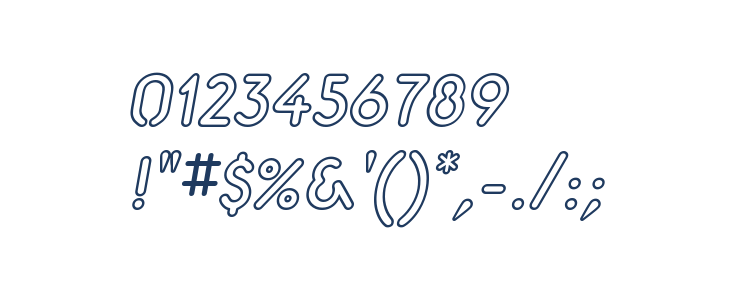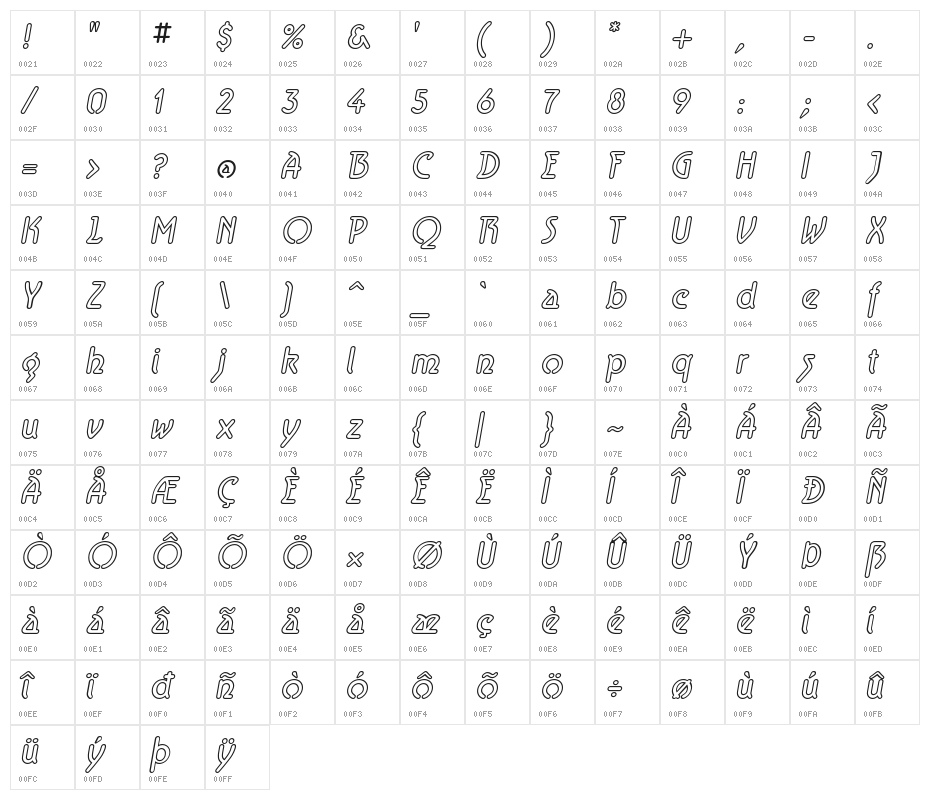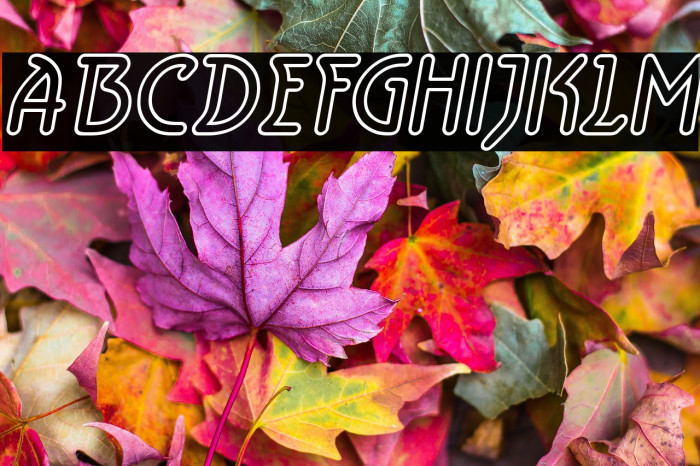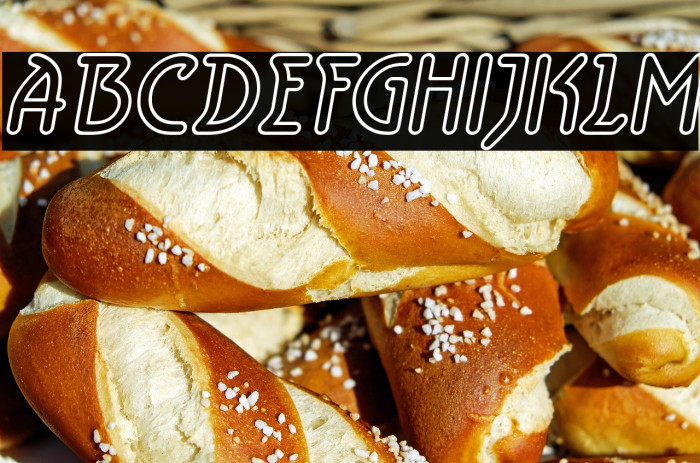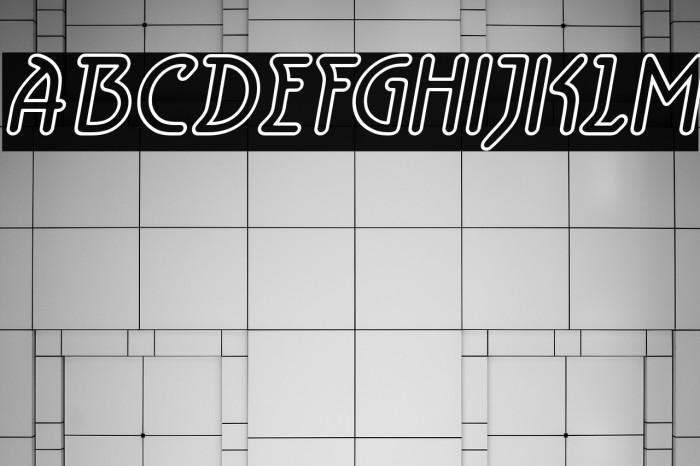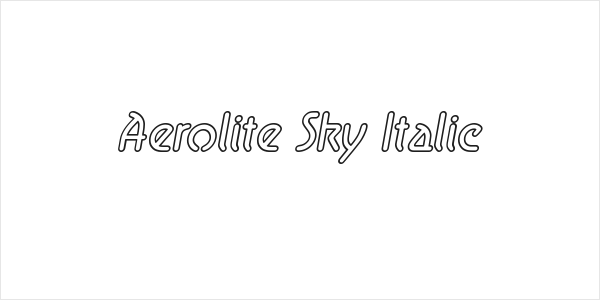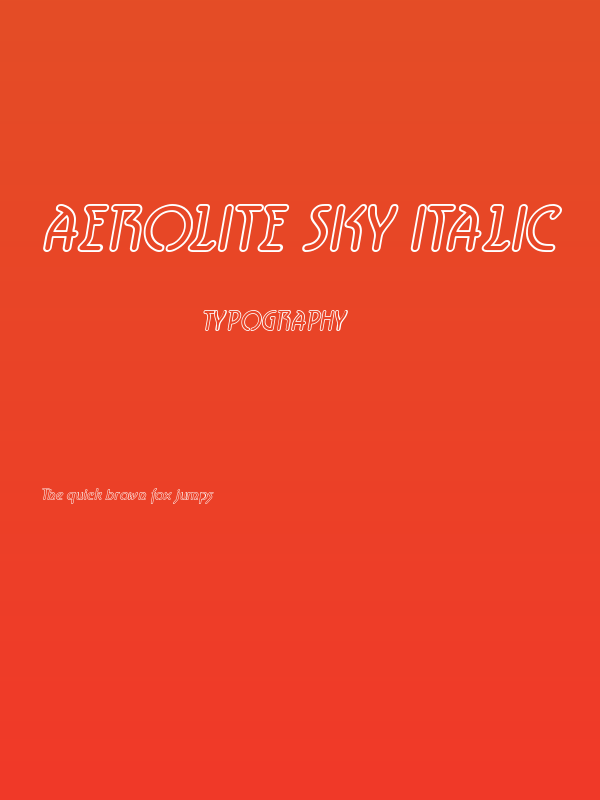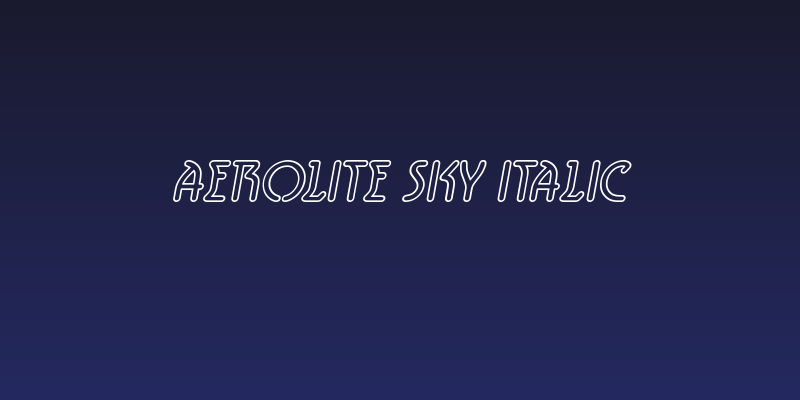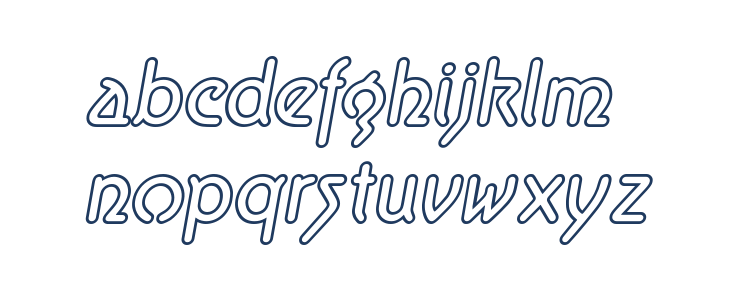
Aerolite Sky Italic Font
Aerolite Sky Italic Description
This font features a modern and dynamic style with a distinct italic slant, giving it a sense of motion and fluidity. The characters are outlined, creating a hollow effect that adds a unique visual interest. The uppercase and lowercase letters maintain a consistent design, with smooth curves and sharp angles that enhance readability while maintaining a decorative flair. The numerals and special characters follow the same stylistic approach, ensuring uniformity across all glyphs. This font's open and airy design makes it suitable for projects that require a contemporary and playful touch.